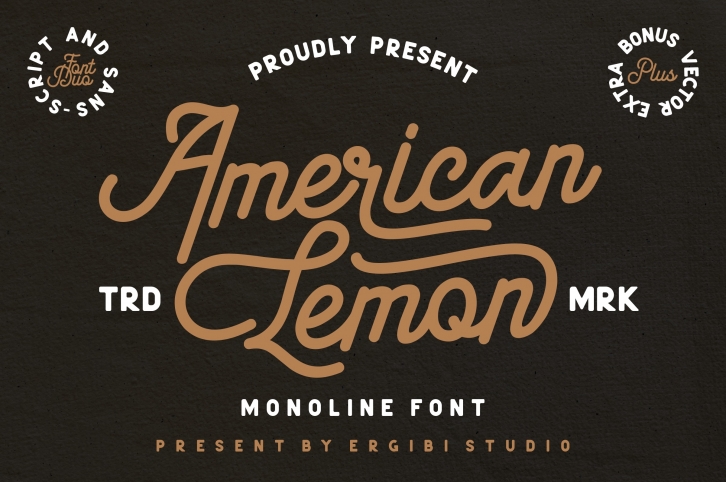
American Lemon Duo is a beautiful font that was designed by Ergibi Studio. It's a great choice for designers and creatives who need such a font. It was released on August 14, 2019 and the file size is 4.3 MB. American Lemon Duo may give a more youthful, expressive and casual look to your project. It is a very beautiful, refined, elegant, and high-quality font.